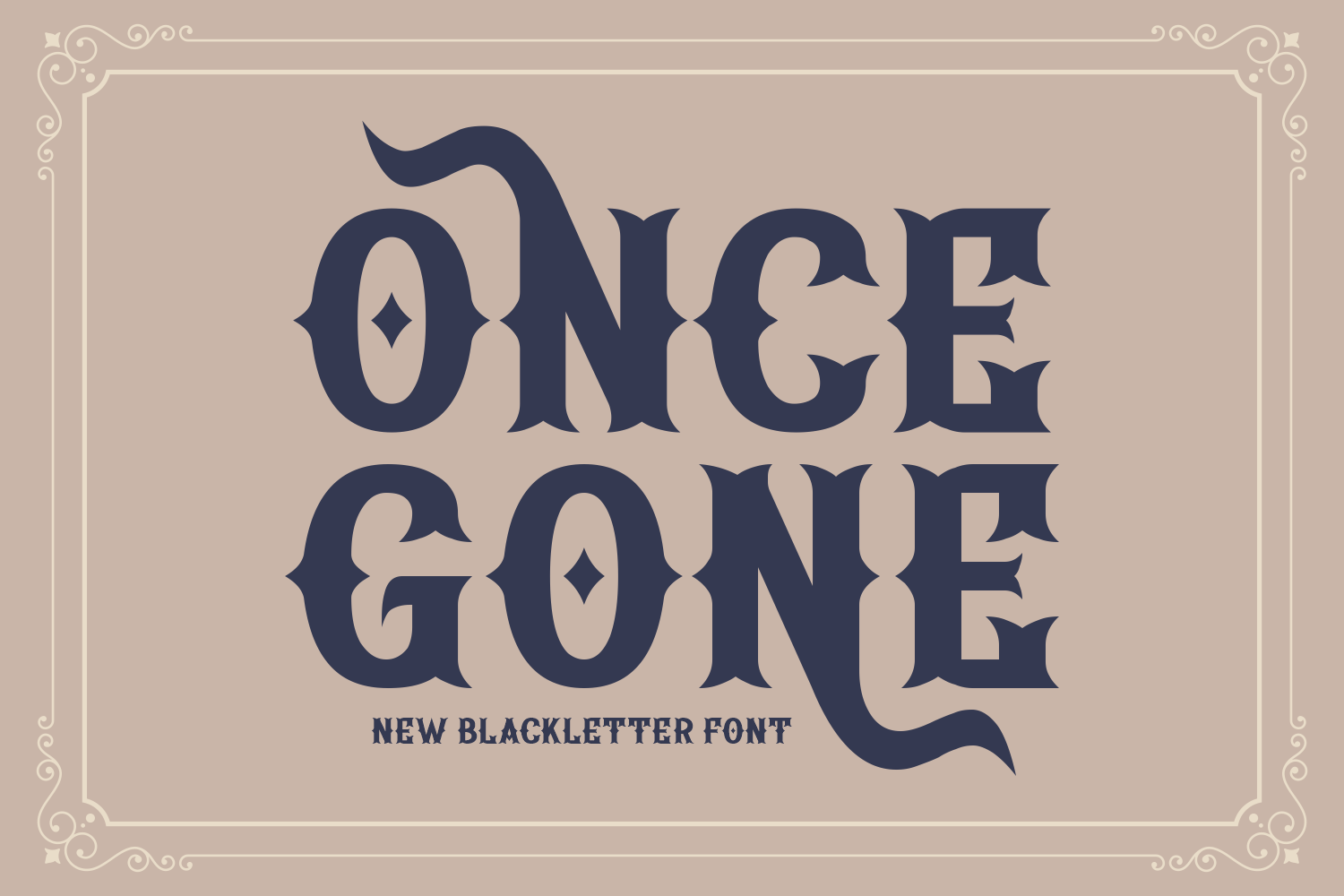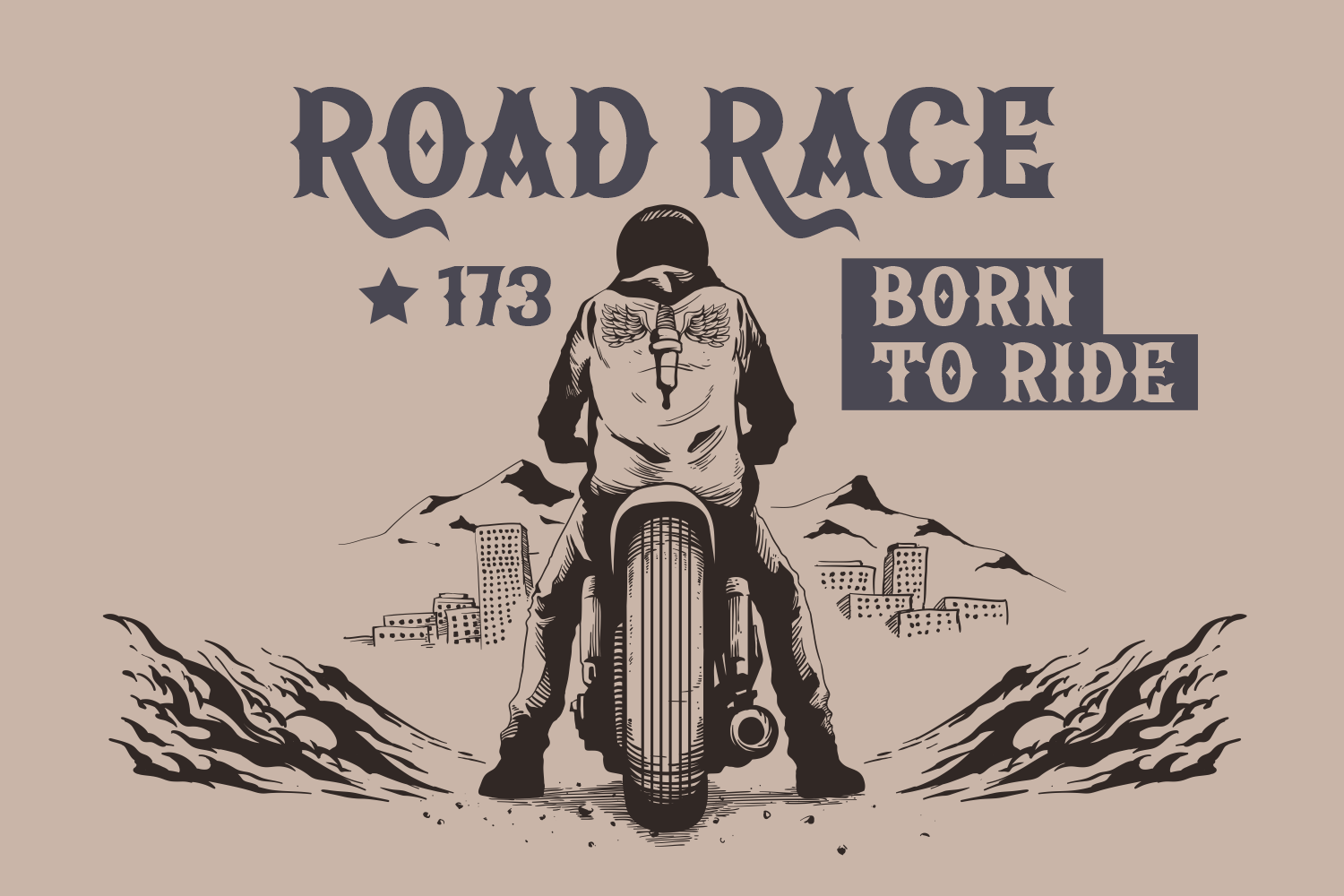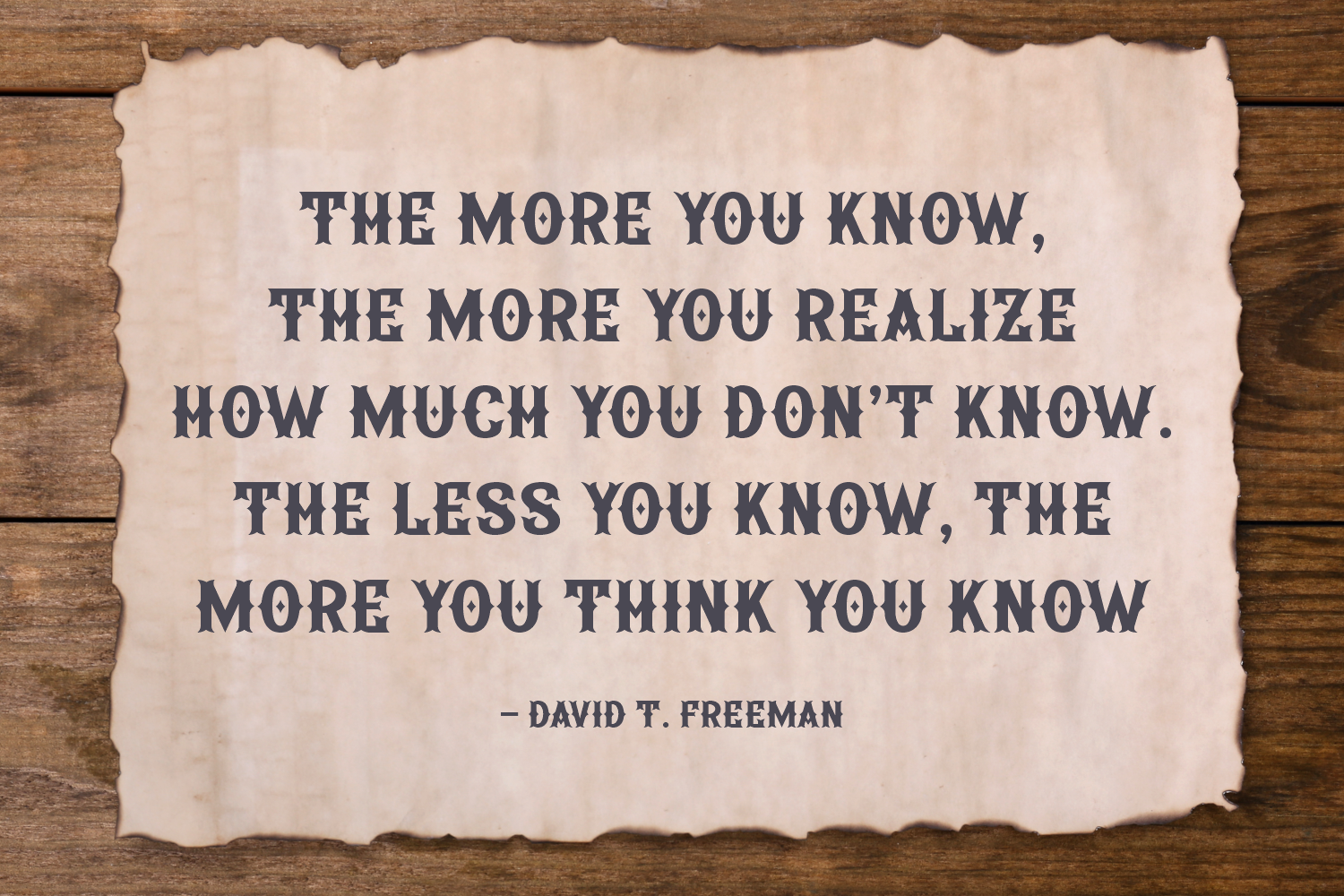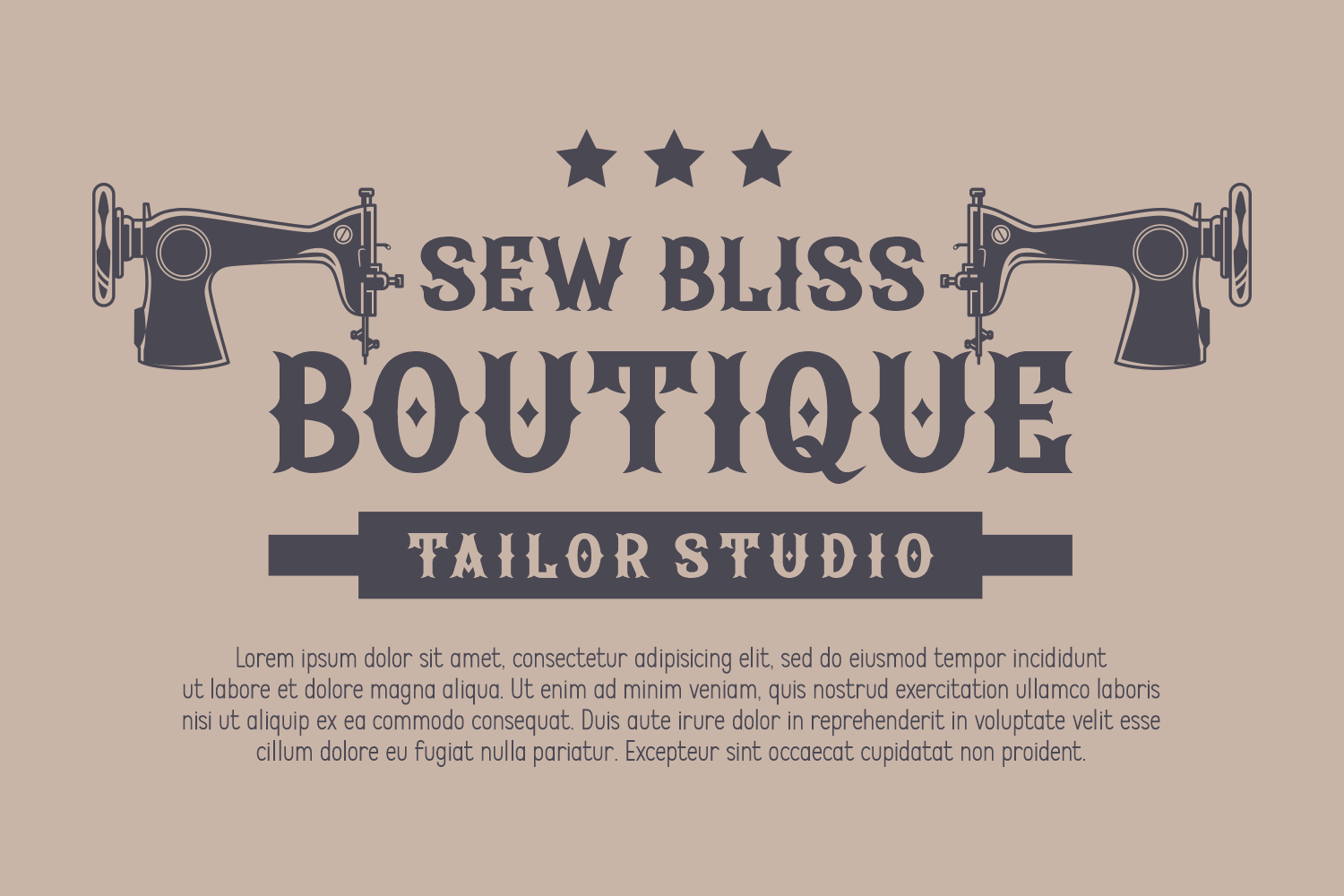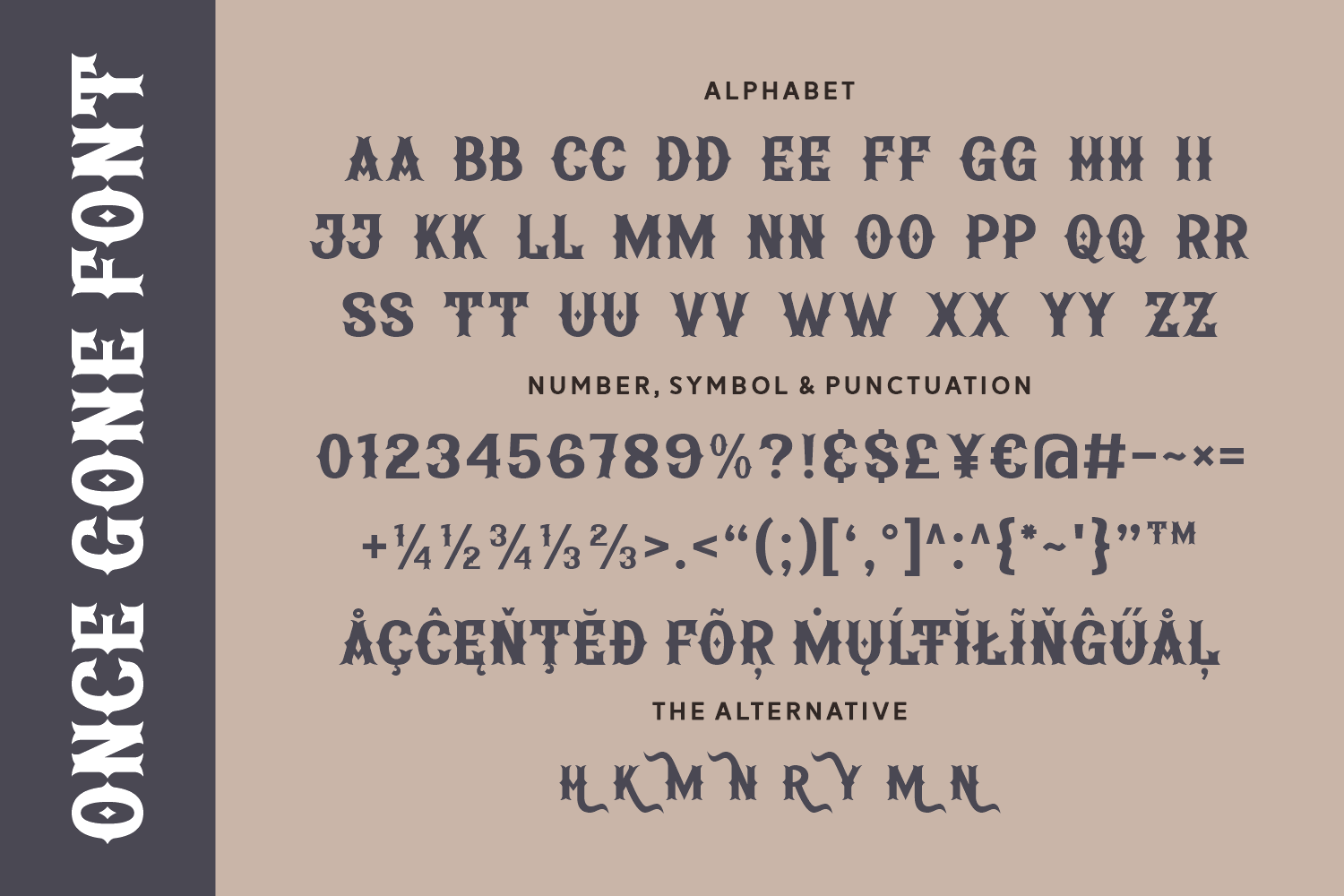
Once Gone is a dramatic and expressive blackletter font with fluid swashes and star-cut details that evoke mystery and motion. Perfect for dark fantasy covers, gothic branding, or editorial designs, it blends strength with subtle grace.